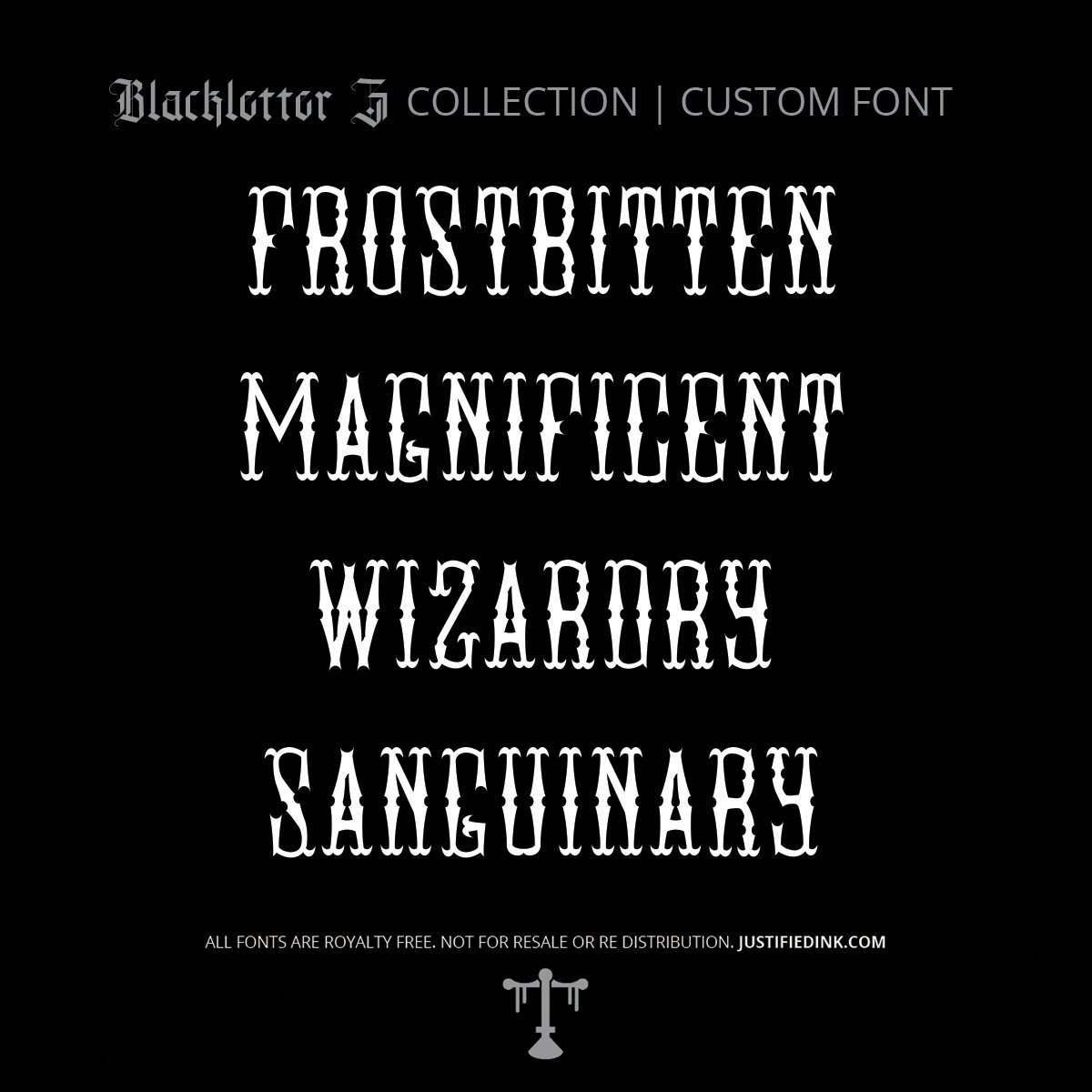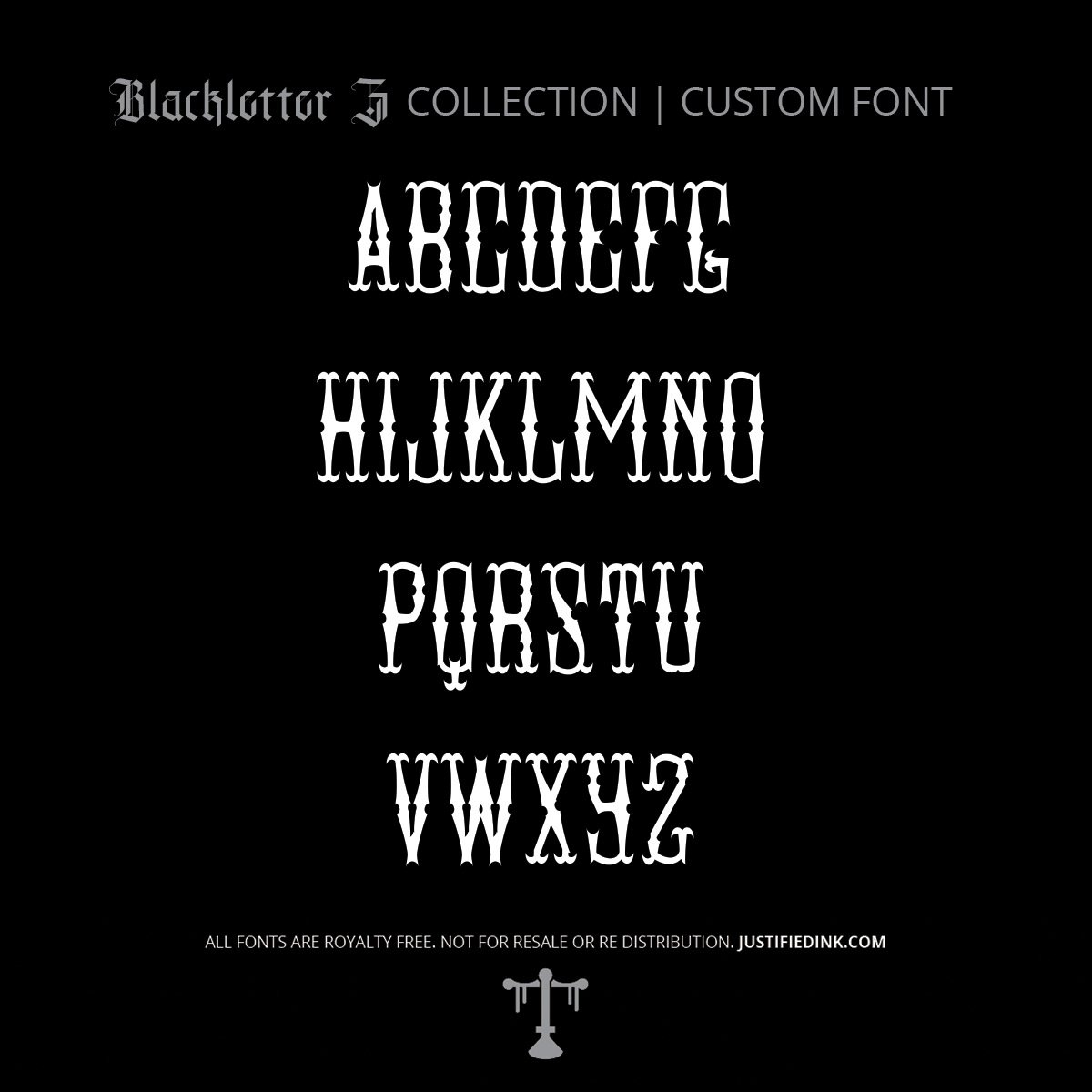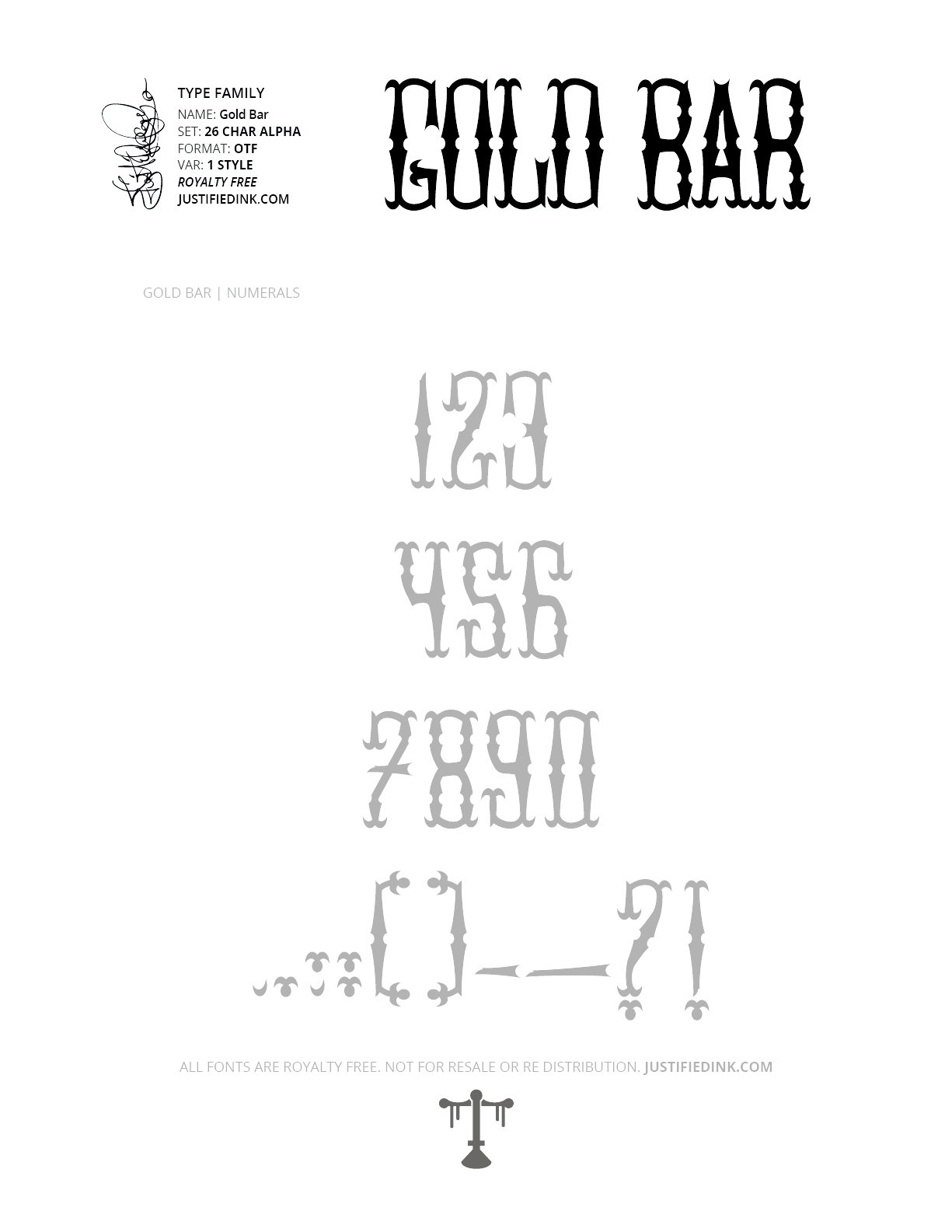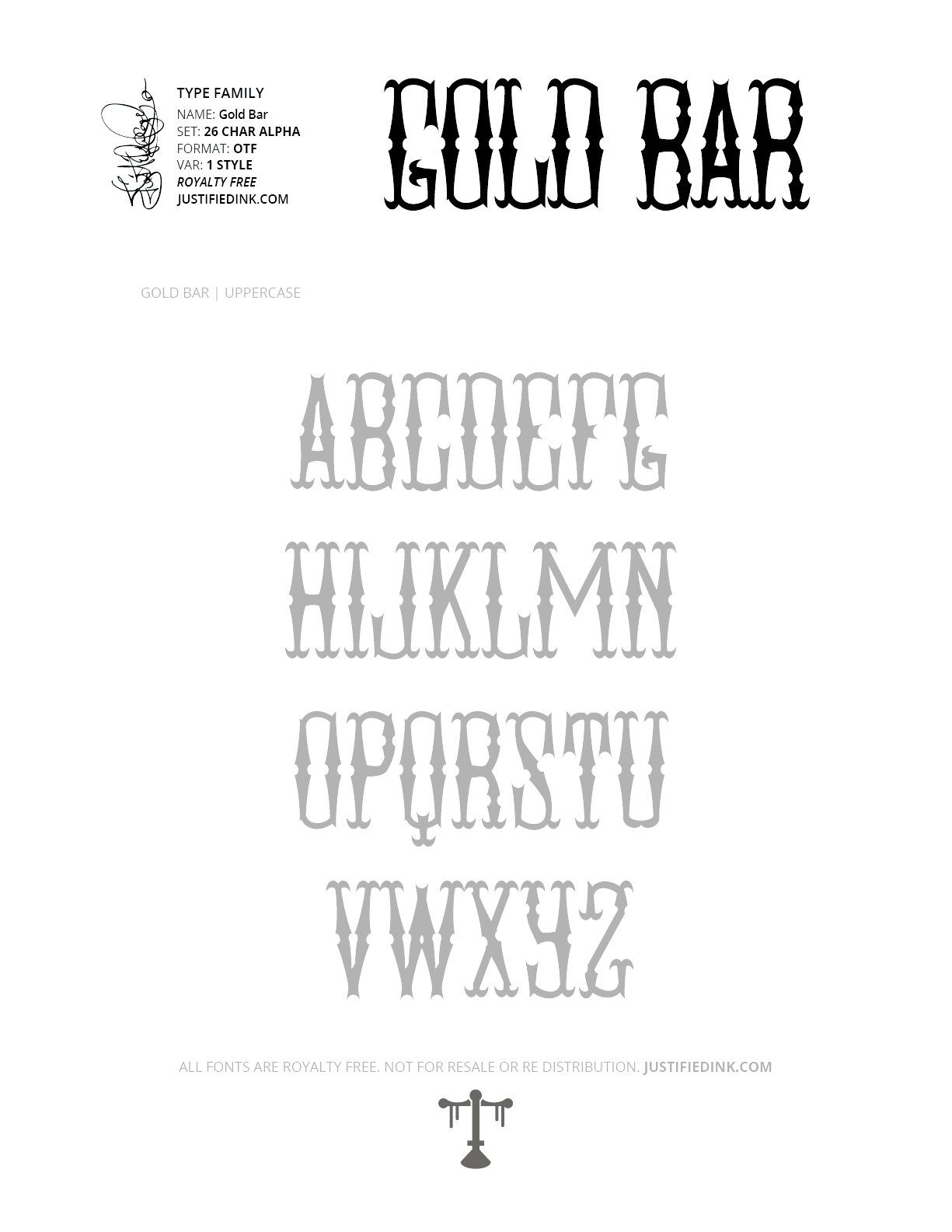
Gold Bar (1 style) - Custom Font
Gold Bar (1 Style) - Custom Font
Where the Gold Was Heavy and the Ale Was Cold
Gold Bar is a tall western display font inspired by the handcrafted saloon signs, trading posts, and carved storefronts that defined the American frontier. Crisp serifs, confident proportions, and decorative detailing give every letter the unmistakable character of a sign painted by hand or carved from timber to welcome weary travelers through swinging doors.
Named as a nod to both the precious metal and the legendary taverns that fueled life in boomtowns, Gold Bar captures the spirit of another era. It feels equally at home on whiskey labels, vintage branding, rodeo posters, tattoo designs, western apparel, rustic packaging, and handcrafted signage. Every character balances elegance with rugged durability—refined enough for a gentleman's establishment, yet sturdy enough to weather the dust of the frontier.